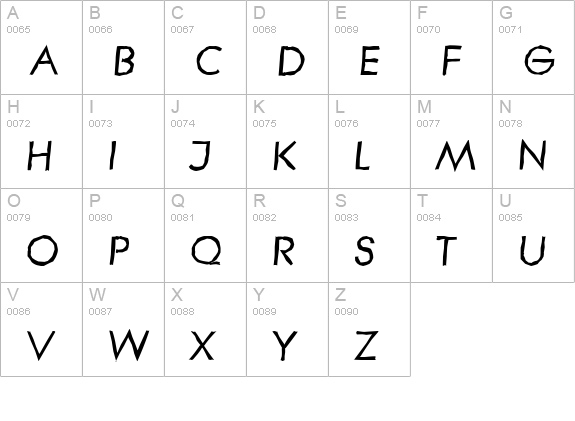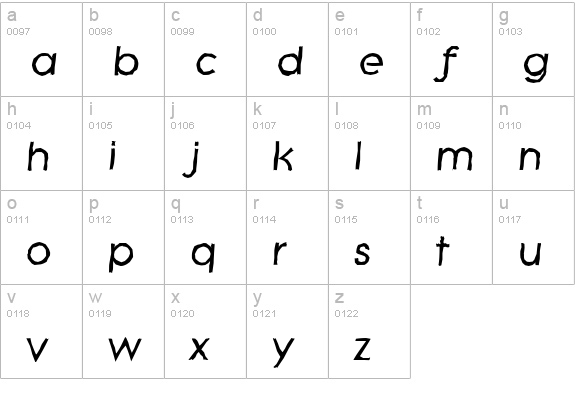
LiteraAntique-BoldItalic Font Details
Introducing LiteraAntique-BoldItalic font - a timeless and elegant typeface that exudes sophistication and charm. This bold italic variant is perfect for adding a touch of class to any design project, from invitations to branding to packaging. Designed with vintage inspiration in mind, LiteraAntique-BoldItalic font features intricate details and delicate curves that make it stand out from the crowd. Its bold yet graceful appearance makes it ideal for headlines, logos, and other eye-catching elements. And the best part? LiteraAntique-BoldItalic font is available for free download at FontsMarket.com. So you can elevate your designs with this stunning font without breaking the bank. Don't miss out on the opportunity to add a touch of timeless elegance to your projects with LiteraAntique-BoldItalic font!